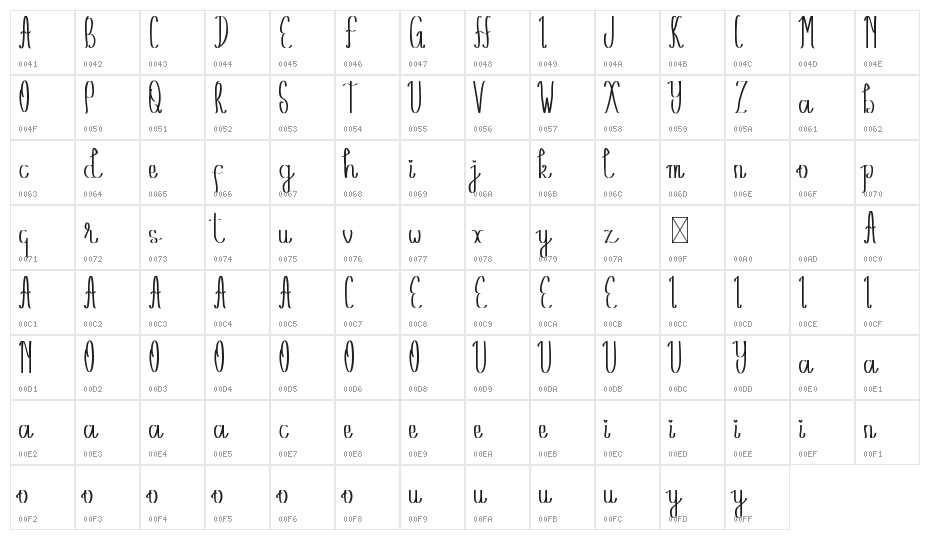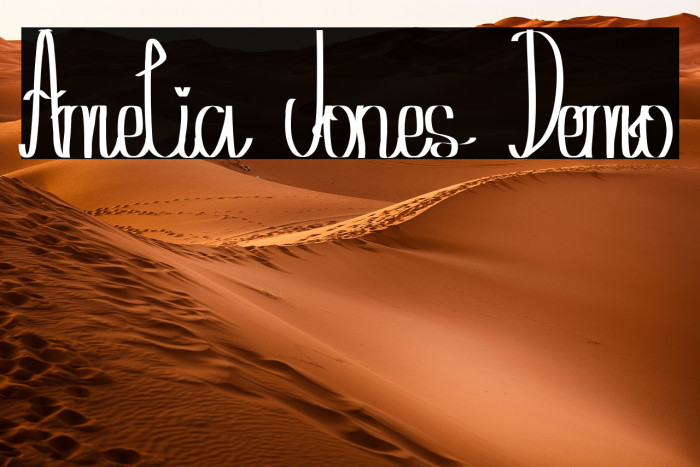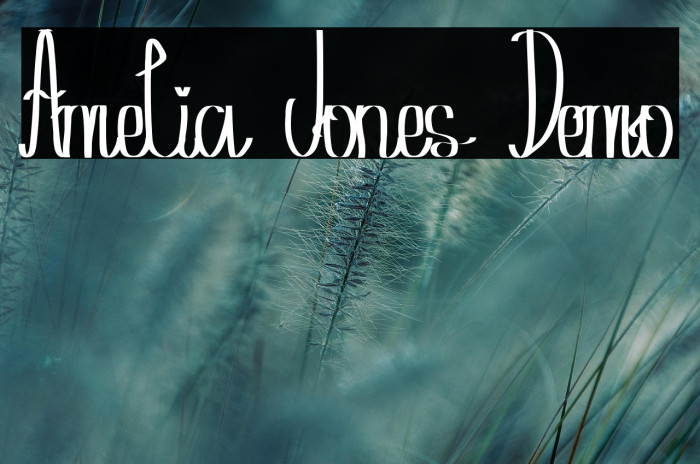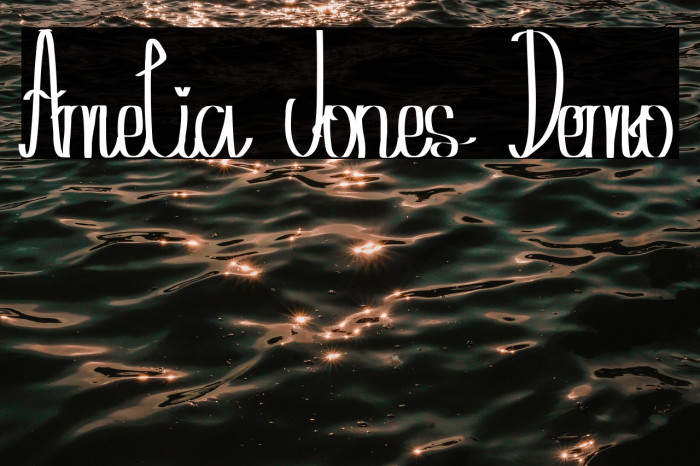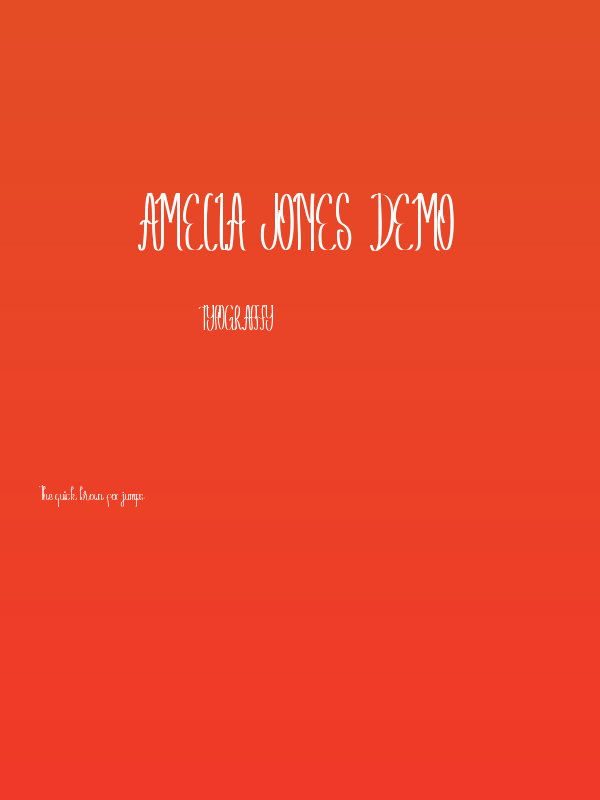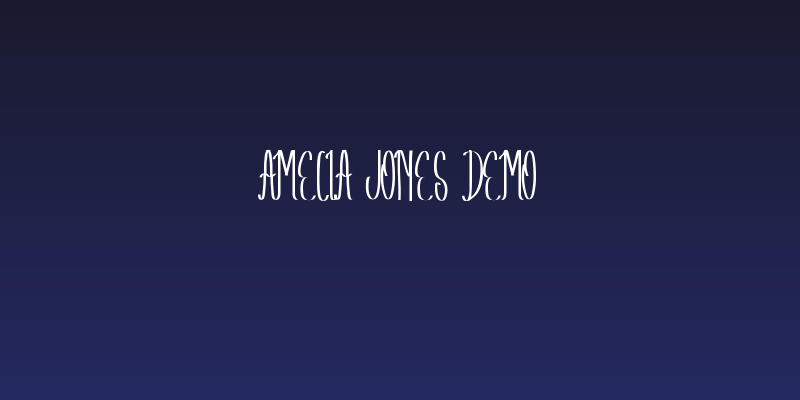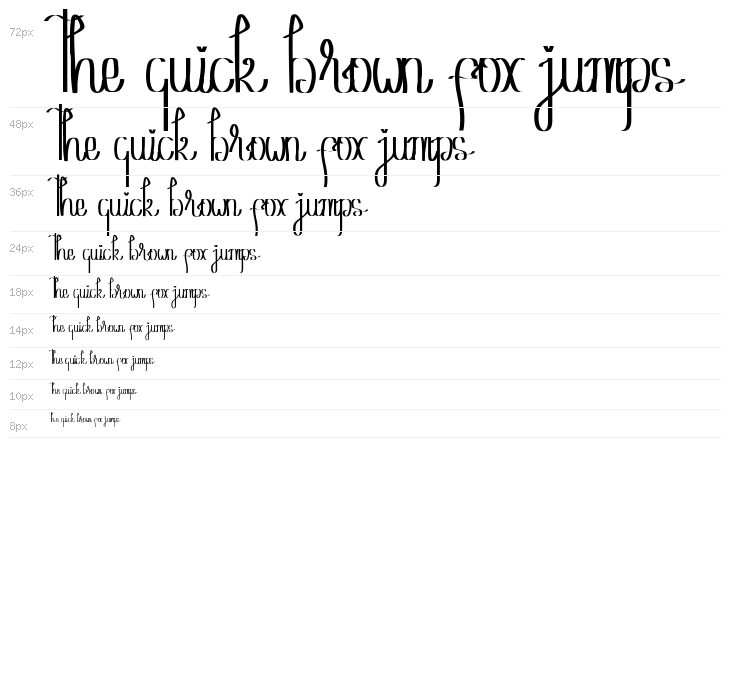
Amelia Jones Demo Font
Amelia Jones Demo Description
This font features an elegant and flowing script style with a modern twist. The characters are tall and slender, with elongated ascenders and descenders that give it a graceful appearance. The strokes are smooth and connected, creating a sense of continuity and fluidity. The uppercase letters are particularly striking, with their intricate loops and curves, while the lowercase letters maintain a consistent style that complements the overall design. This font exudes sophistication and is perfect for projects that require a touch of elegance and class.
Use CaseLogos, Invitations, Branding
Proposed ProjectsIdeal for wedding invitations, elegant branding, luxury product packaging, and sophisticated logo designs.